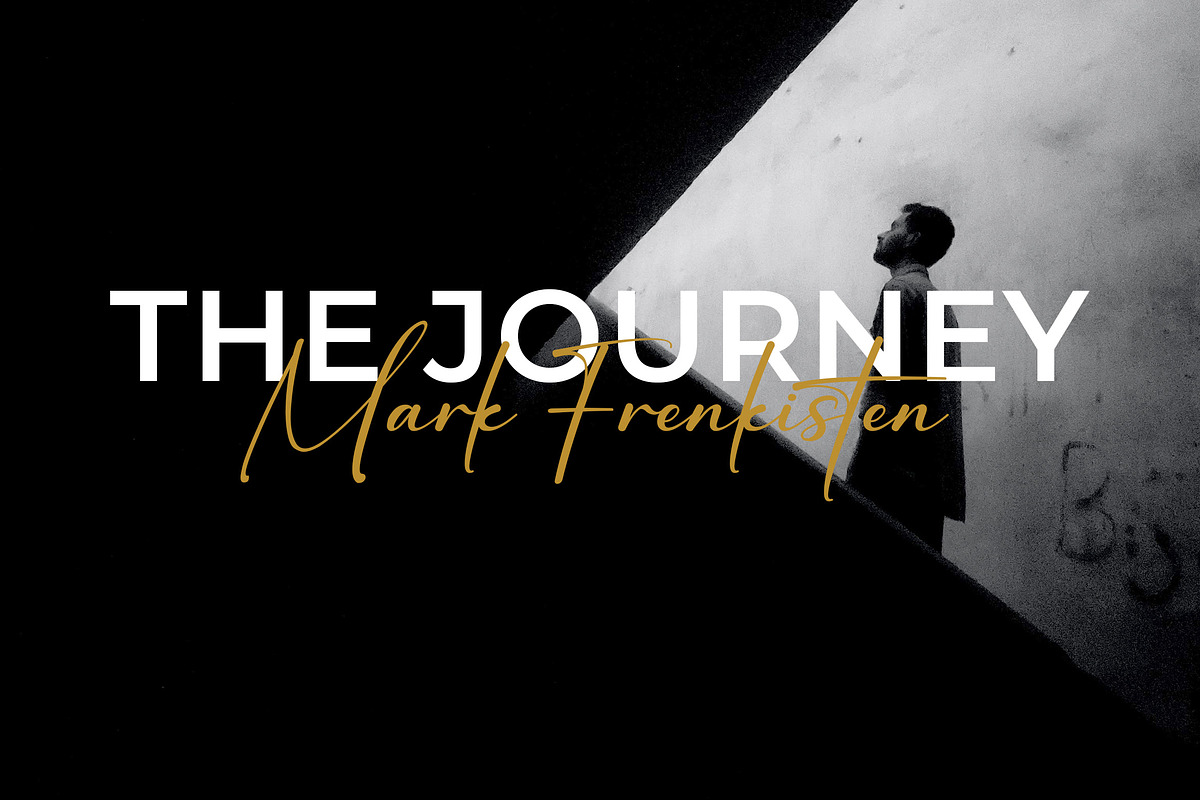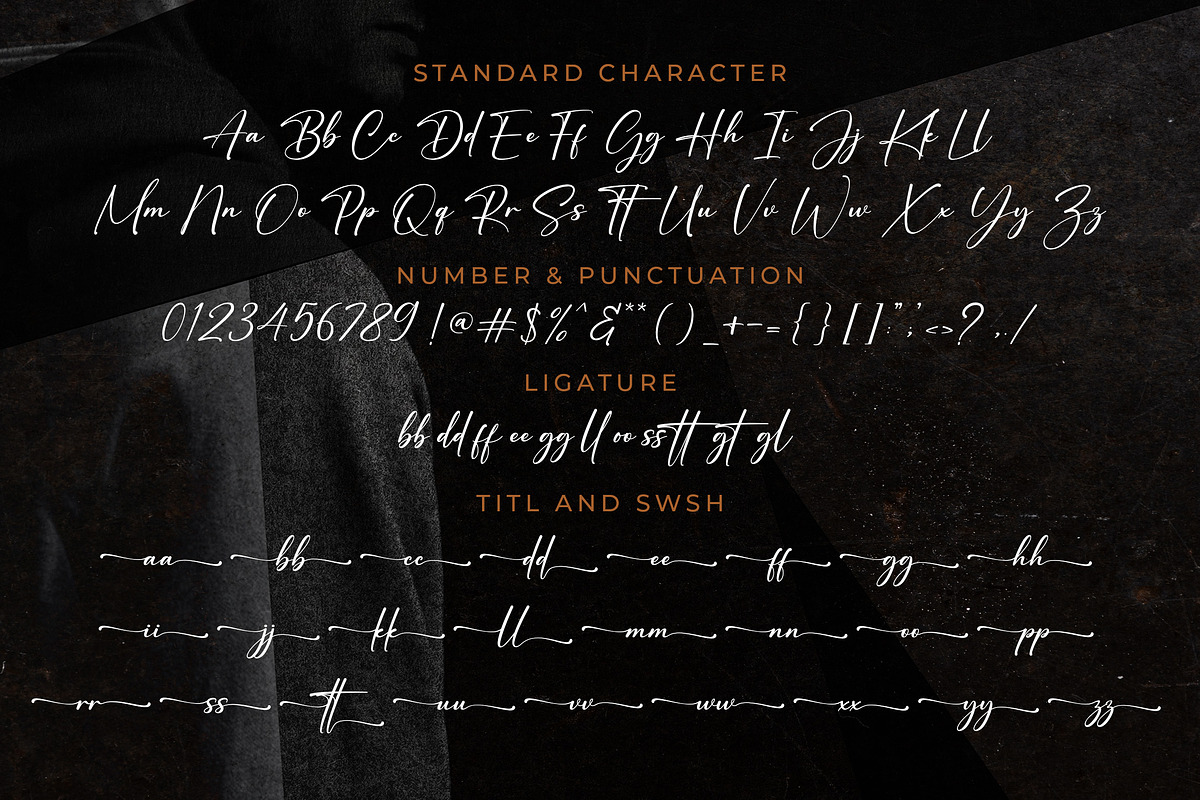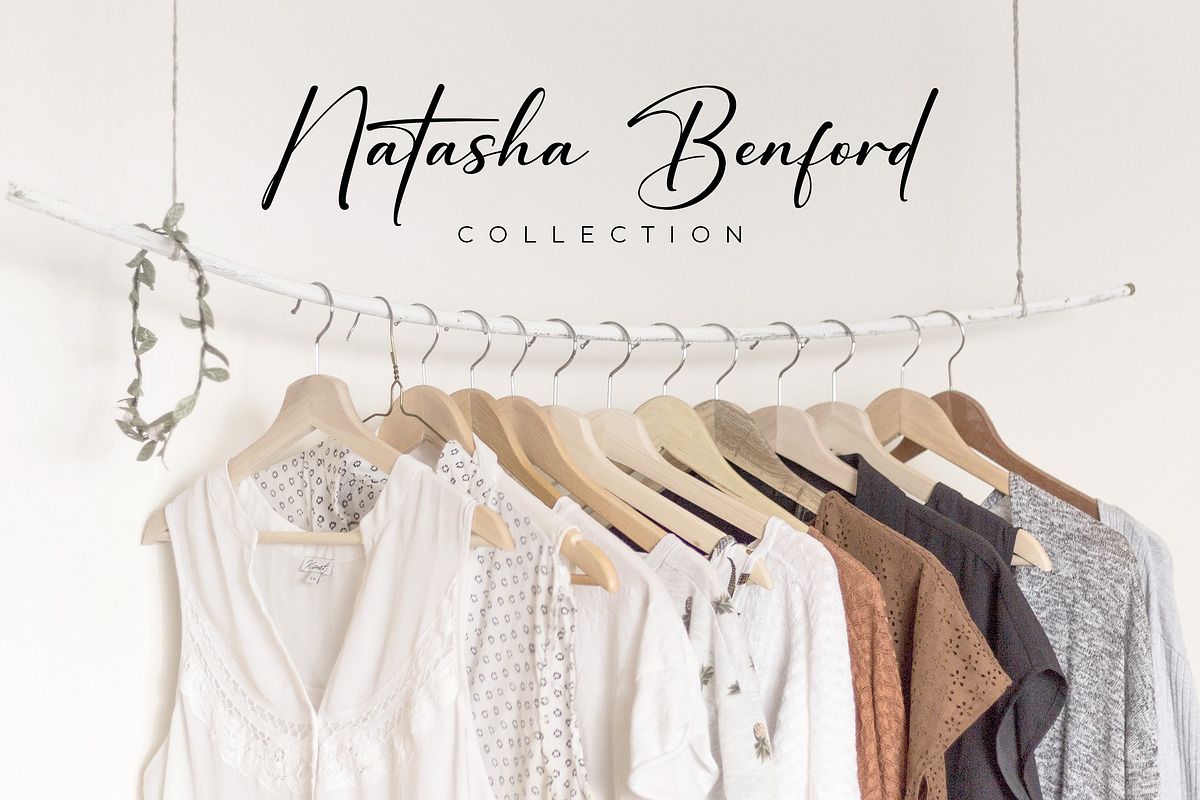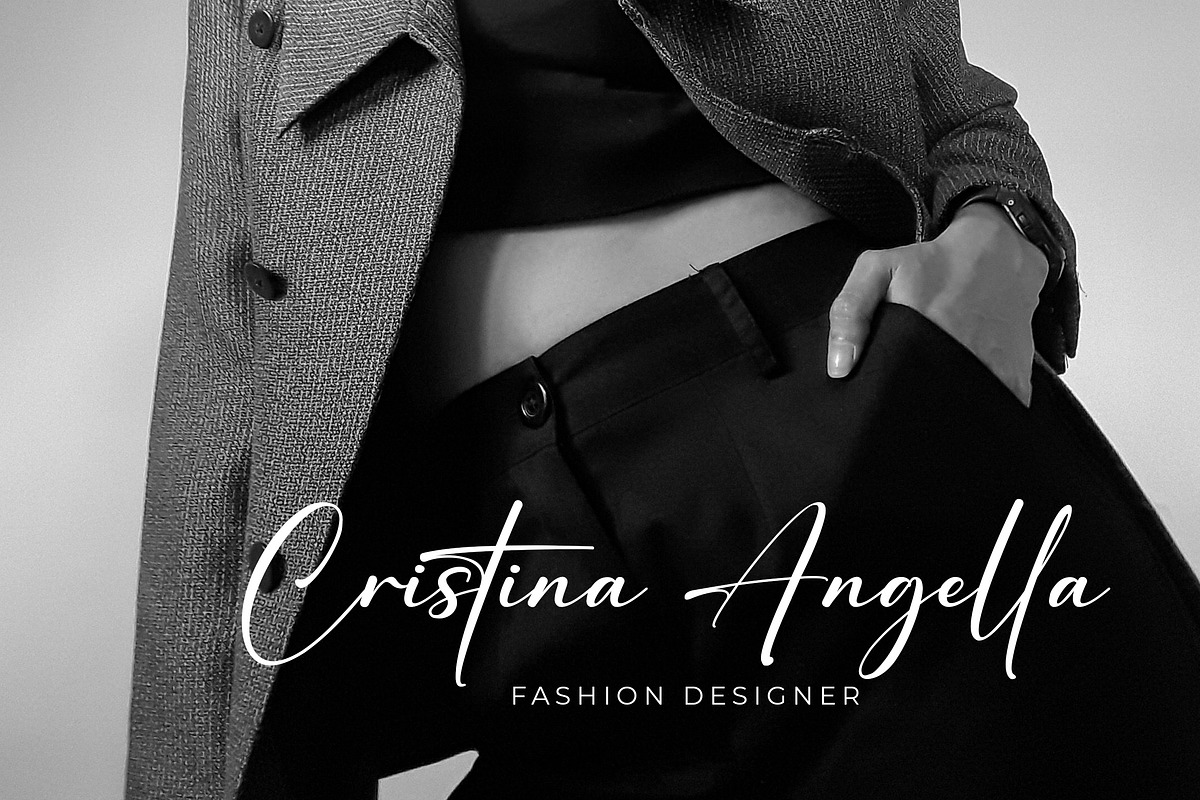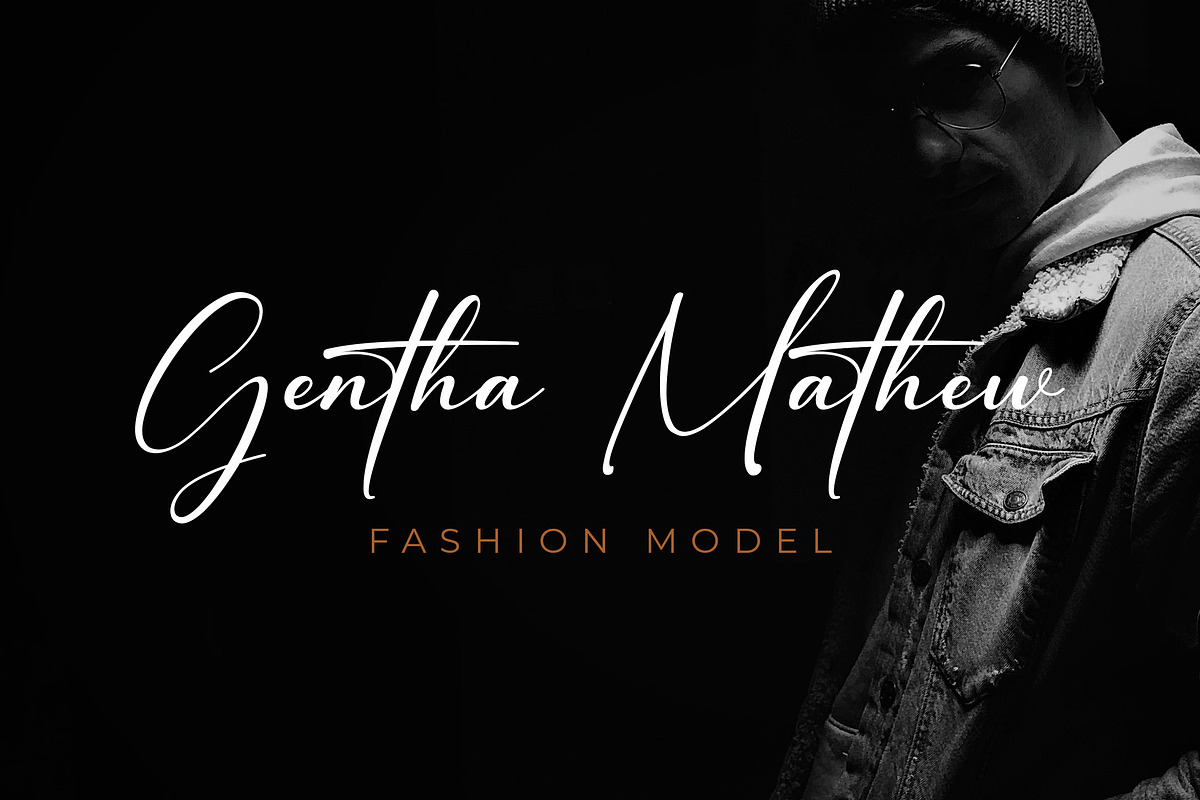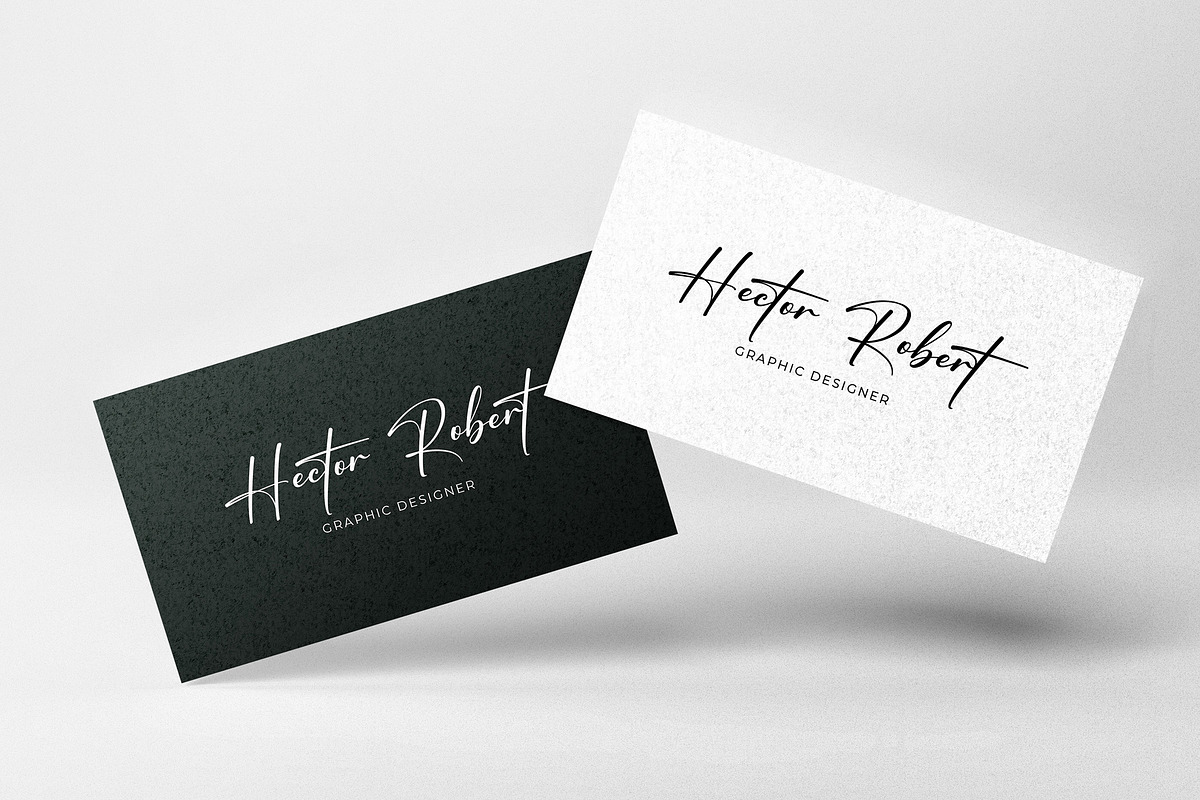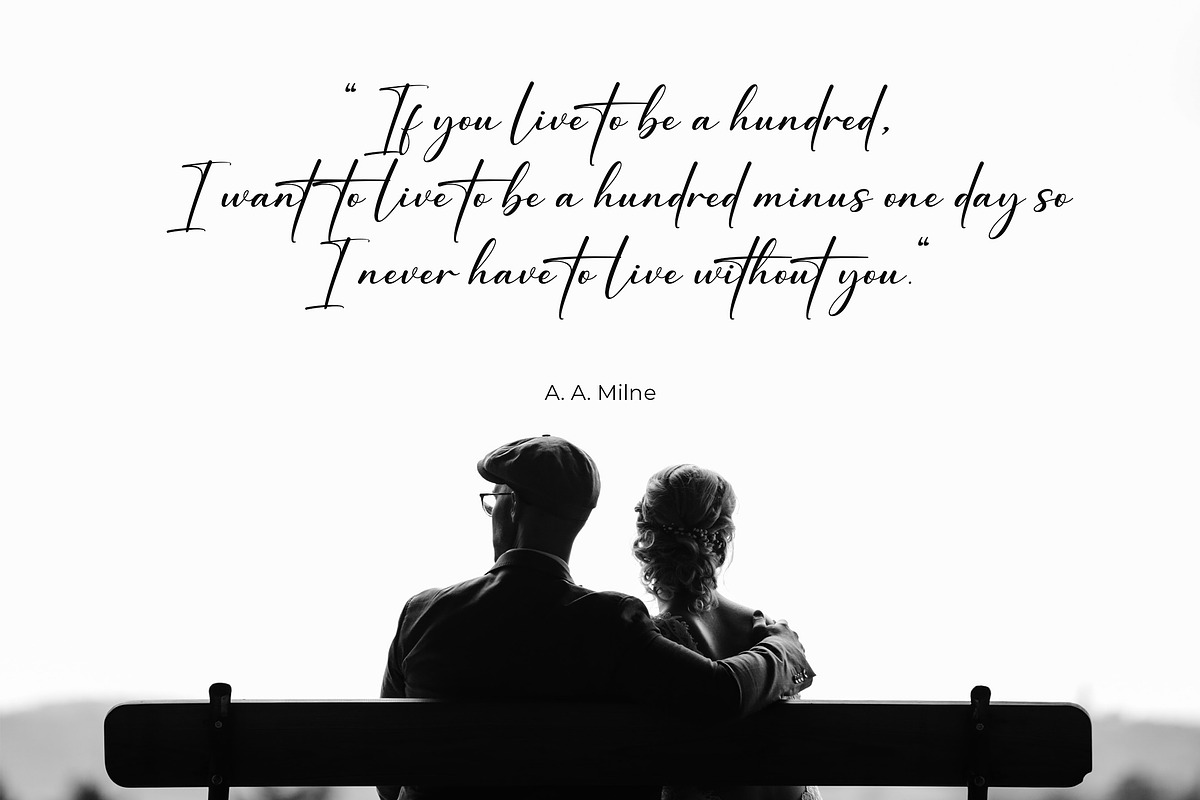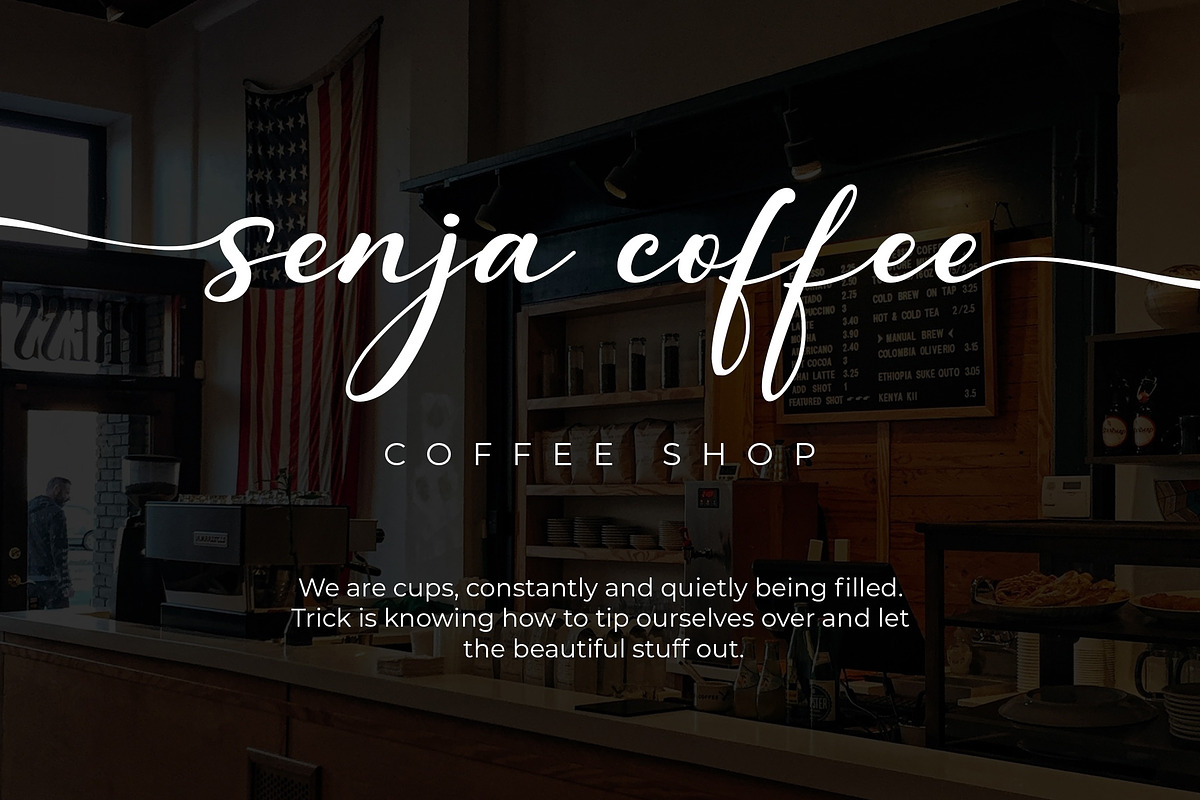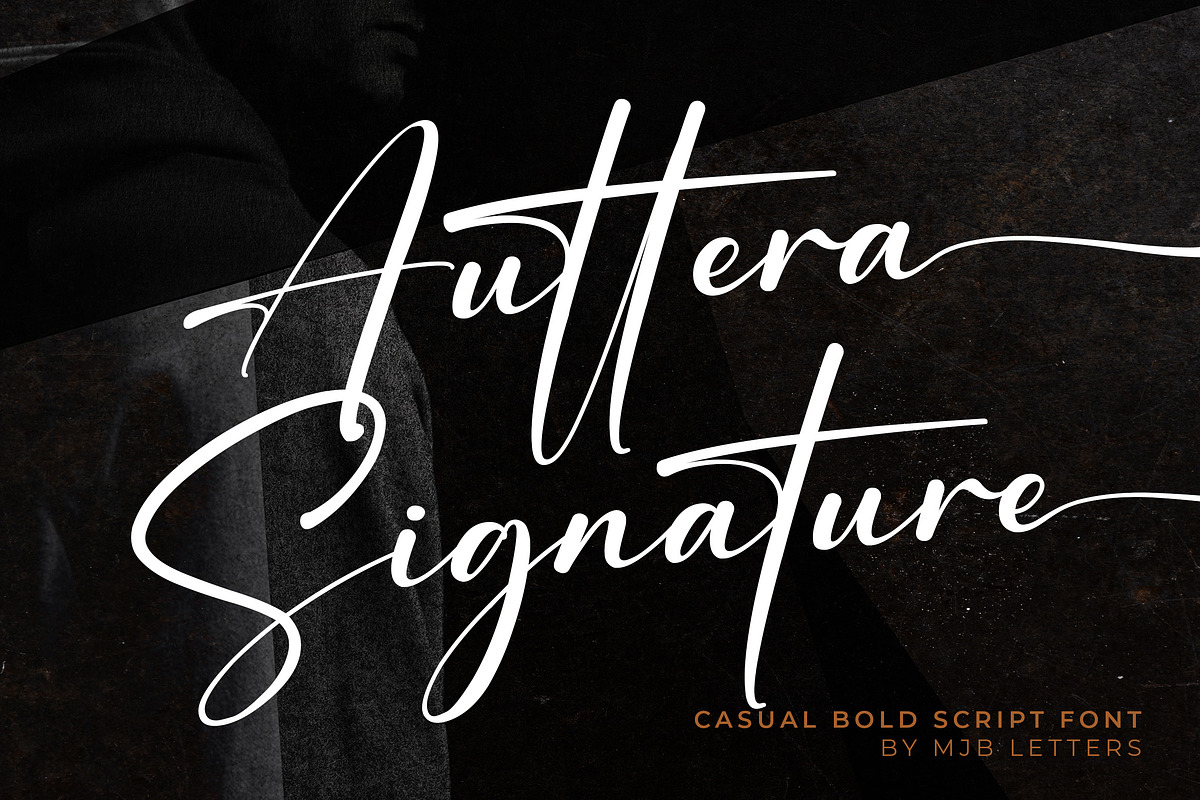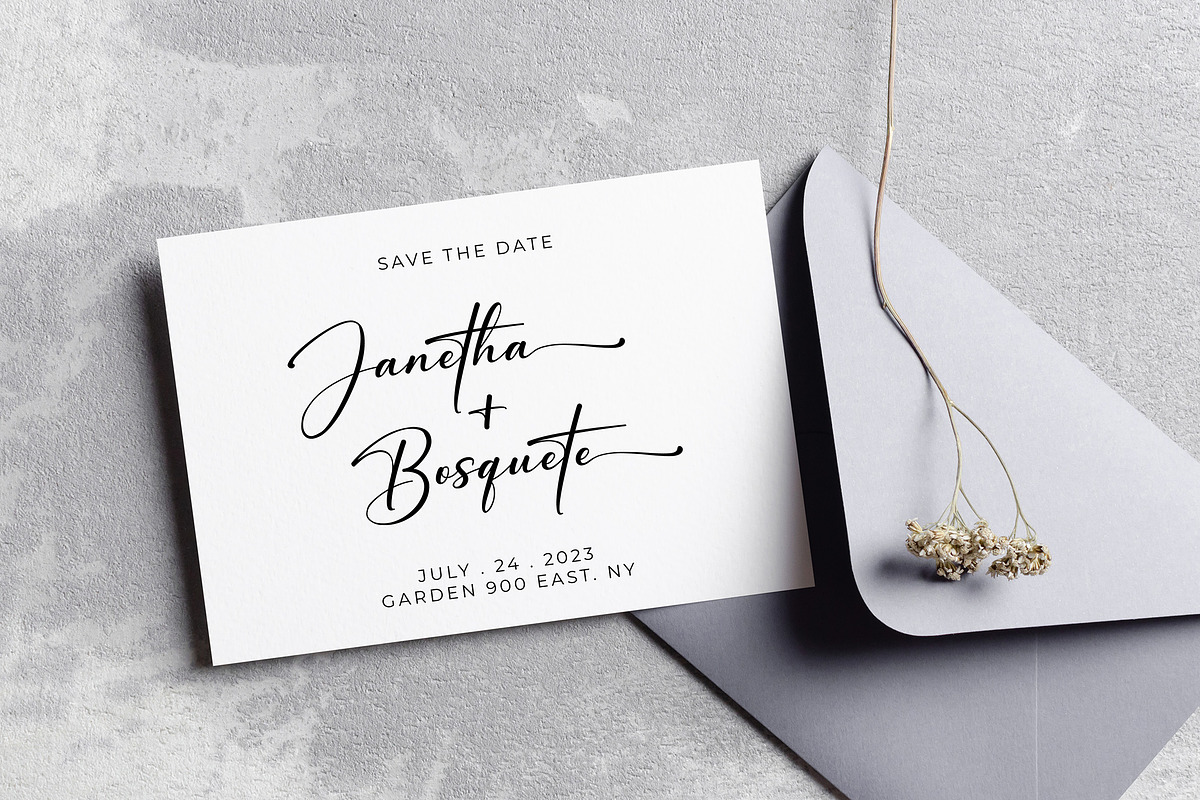
Auttera Signature
Auttera Signature is a bold script font with a casual style and modern concept, this font has an attractive ligature and beginning and ending swash that can make the design more attractive.